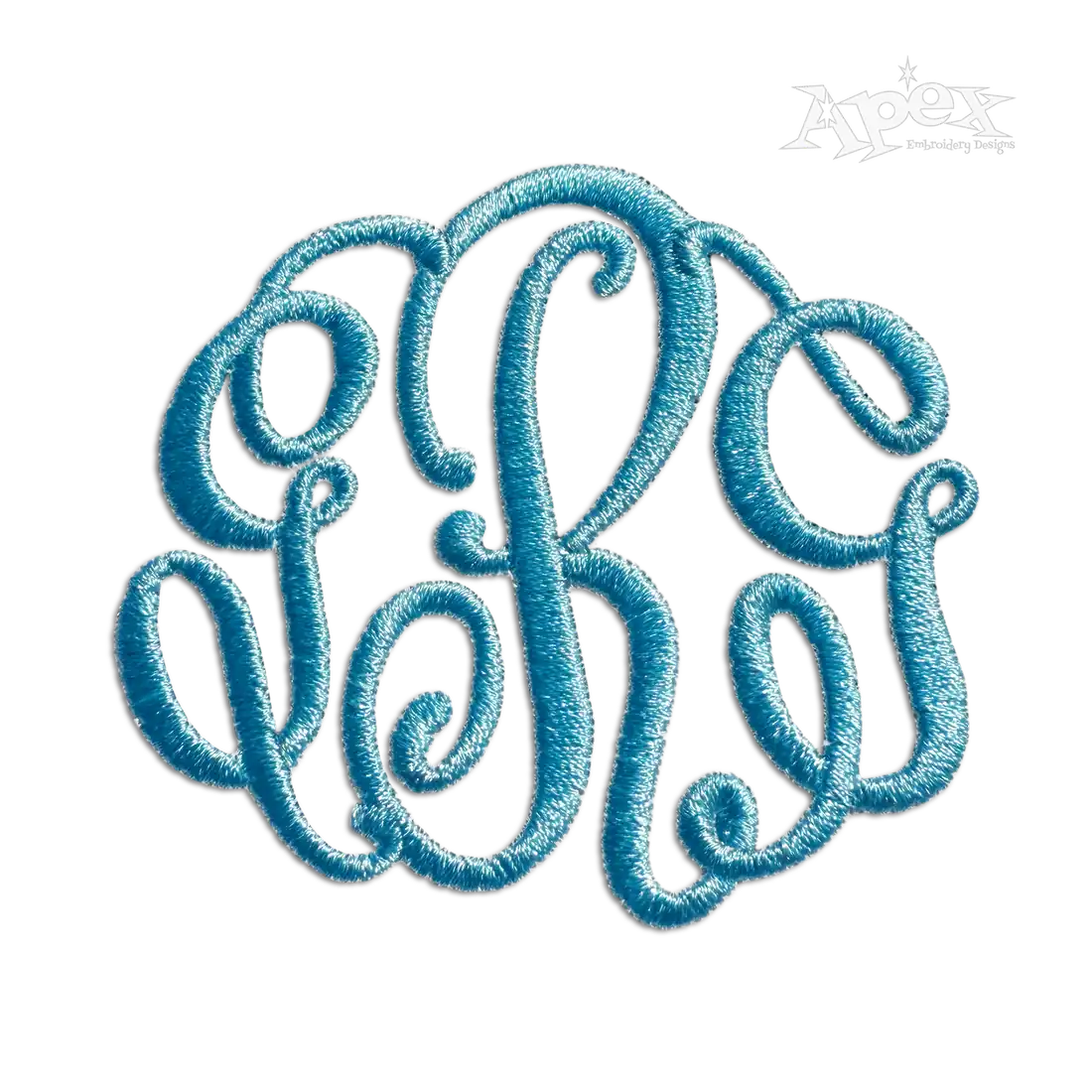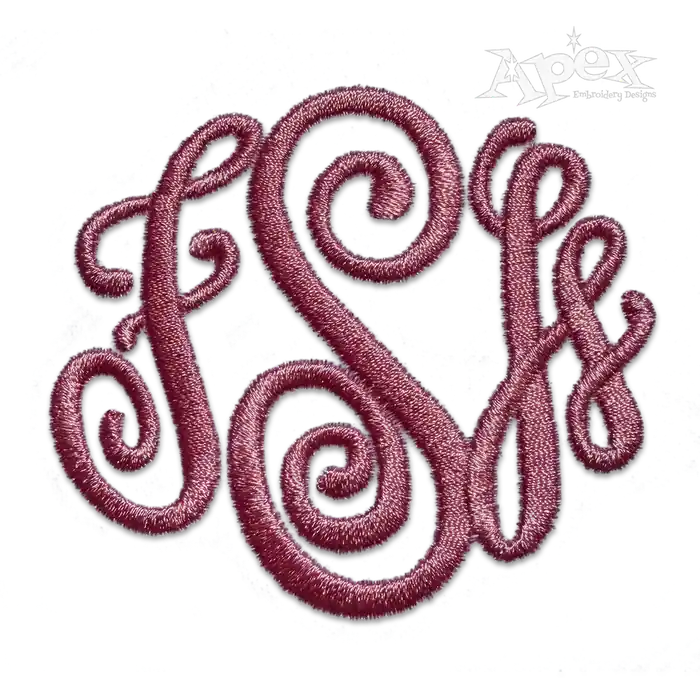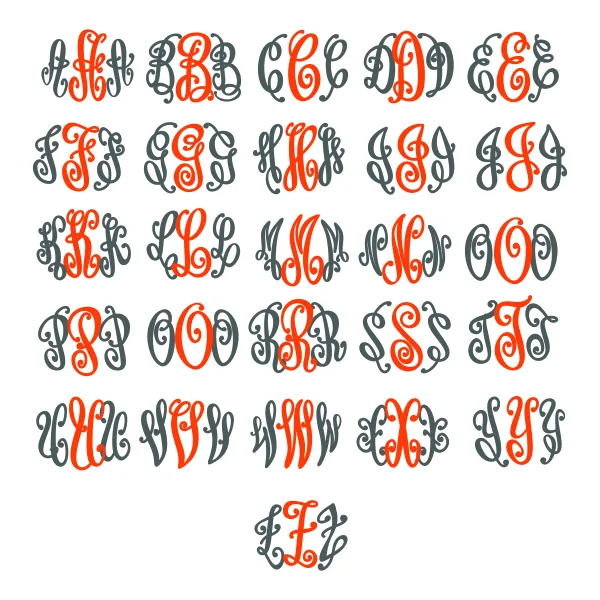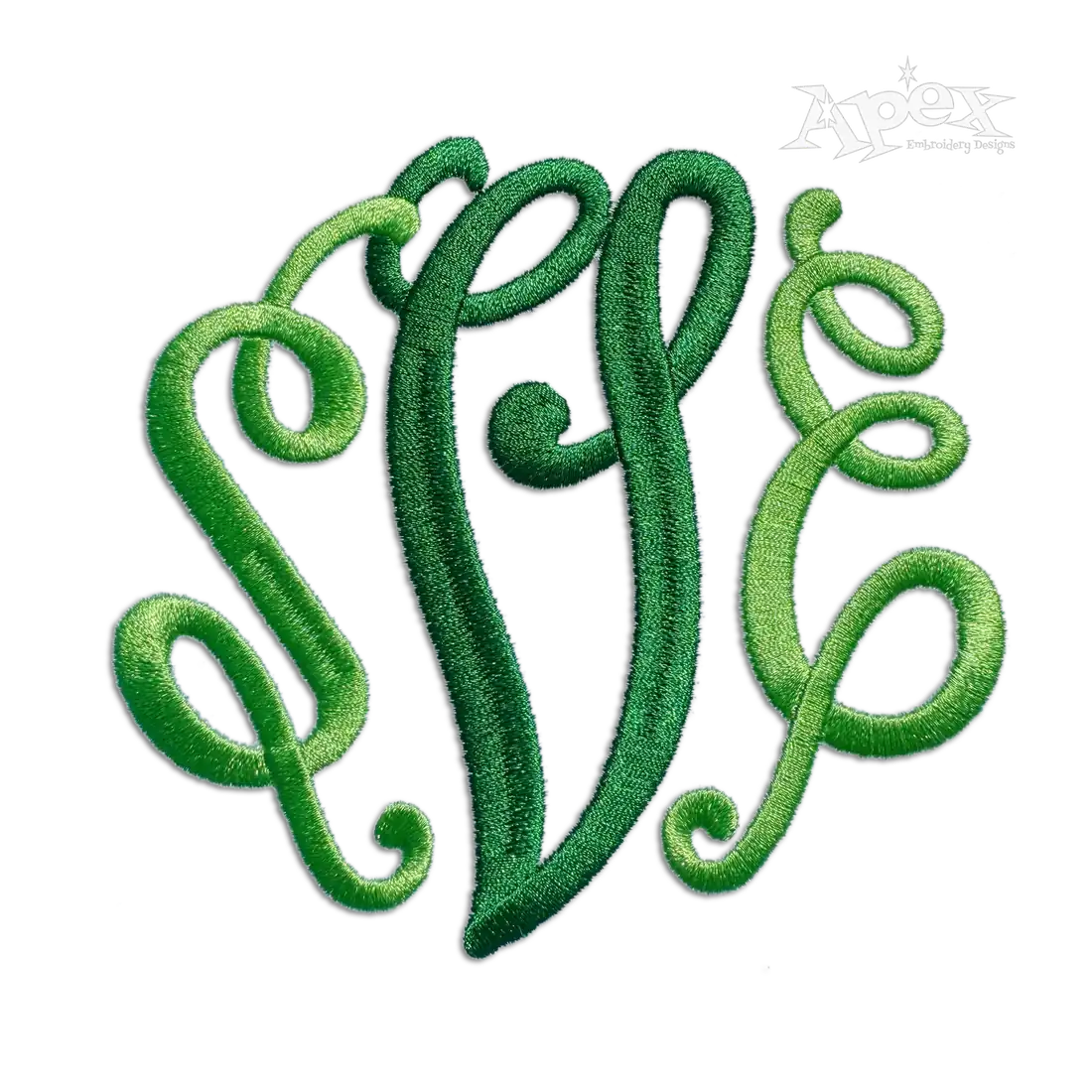
Curlz Fun Circle Embroidery Font
Brimming with irrepressible whimsy and buoyant charm, the Curlz Fun Circle Embroidery Font reinterprets casual typography into a jubilant celebration of needlecraft. Born from a desire to blend lighthearted personality with the balanced poise of a circular monogram, this alphabet dances across fabric with looping swashes and buoyant energy. Whether bringing sunshine to everyday kidswear or introducing a carefree spirit to custom monogramming, each character balances dancing flair with meticulous digitizing precision.
Project Ideas for Curlz Fun Circle Embroidery Font
The cheerful spirit of this rounded typeface makes it a delightful choice for creative, personalized gifting and bespoke home accents:
- Children?s Keepsakes & Apparel: Embroider playful monograms onto denim jackets, birthday shirts, bubble rompers, and sweet school backpacks.
- Bespoke Resort Wear & Summer Totes: Add an energetic pop of personality to heavy canvas beach totes, floppy straw sun hats, and terry cloth cover-ups.
- Nursery Heirlooms: Stitch cheerful name medallions across corner borders of pastel baby quilts, cuddle blankets, and plush hooded bath wraps.
- Personalized Gifting: Personalize vibrant travel cosmetic pouches, slumber party pajama sets, and personalized water bottle slings for memorable bridal party or birthday surprises.
- Festive Table & Kitchen Accents: Stitch lively initials onto durable cotton aprons, casual barbecue napkins, and vibrant picnic accessories.
This rounded silhouette naturally centers the eye, offering balanced harmony across a wide array of textile positions:
- Center Chest & Bodice: Perfectly suited for the front of sweatshirts, tees, and children's swim cover-ups, where the circular composition sits naturally.
- Tote Bag Pockets & Flaps: Positioned squarely in the middle of canvas totes or backpack pockets, providing an instant focal point that pops.
- Diagonal Blanket Corners: Stitched neatly across the corner hem of plush minky blankets or heirloom swaddles, allowing the playful curls to peek out when folded.
- Decorative Pillow Centers: Form a delightful medallion on accent cushions for playrooms, nurseries, or sunny outdoor reading nooks.
Curlz Fun Circle Embroidery Font Craft & Letterform Details
Translating the spirited twirls of Curlz into a circular frame requires exceptional digitizing artistry. Each curl, loop, and bouncing serif has been deliberately angled to follow the natural contour of the circular boundary while preserving the distinctive, cheerful bounce that defines the lettering. In the smaller sizes (0.75" to 4"), every stitch is mapped in rich satin columns with carefully calibrated density to preserve crisp inner loops, sharp corners, and a mirror-smooth sheen. For the oversized scales (5" to 7"), we intentionally transitioned the design into specialized split and step stitching. This deliberate technique prevents long, loose spans of thread that could snag, instead providing a textured, stable foundation that preserves the letterform's dimensional beauty wash after wash.